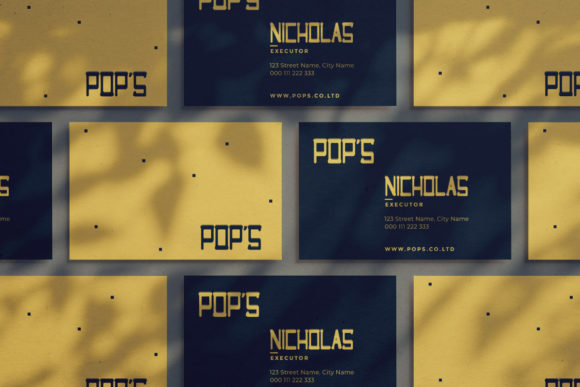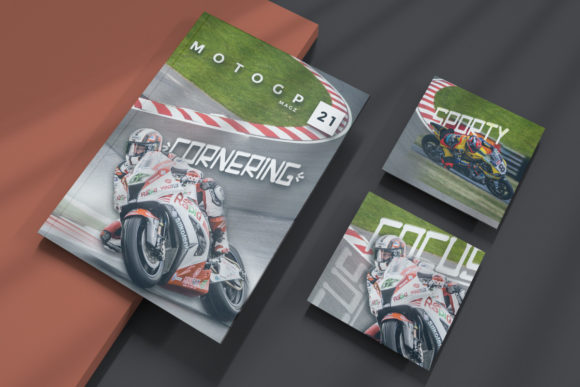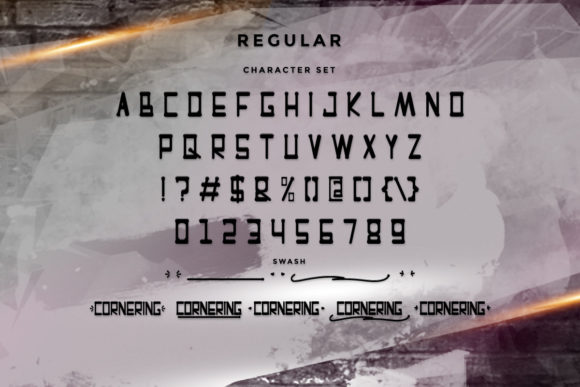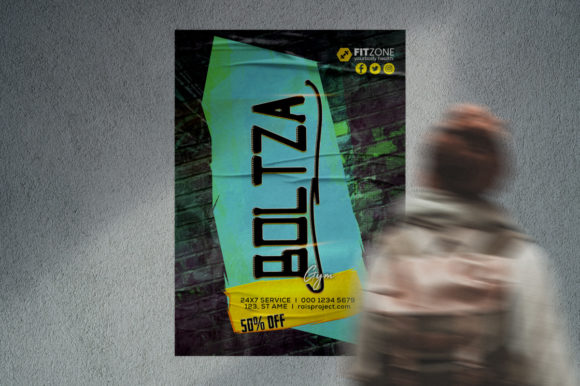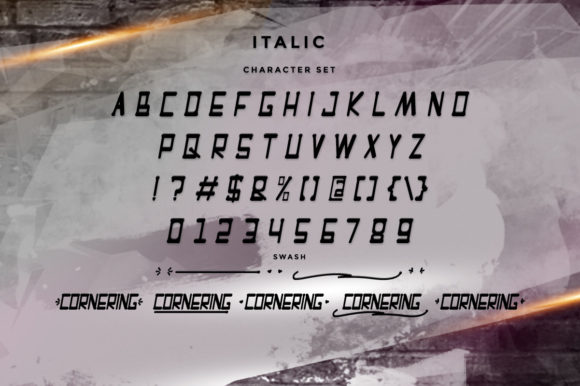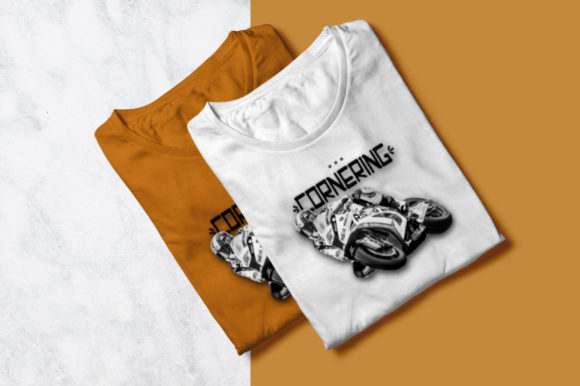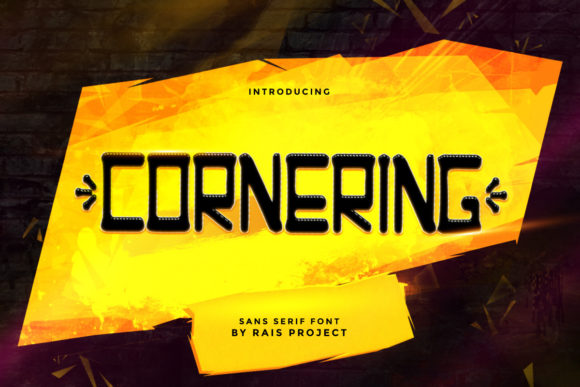
Introducing Cornering Font: The Ultimate Display Font for Modern Designers and Crafters
Are you tired of using the same old fonts for your designs and crafts? Look no further! Cornering Font is here to take your creations to the next level. This cool display font boasts the perfect amount of trendiness, making it an ideal choice for designers, crafters, and anyone looking to add a touch of modern style to their work.
What Makes Cornering Font So Special?
Cornering Font is a versatile and stylish display font that can be used for a wide range of projects. Whether you’re a digital designer working on a new campaign, a crafter creating handmade cards and gifts, or a presenter looking to spice up your slides, Cornering Font is the perfect choice. Its unique and trendy design ensures that your work will stand out from the crowd and leave a lasting impression.
Perfect for Crafting and Digital Designing
Cornering Font is a dream come true for crafters and digital designers. Its bold and eye-catching design makes it perfect for:
• Handmade cards and gift tags
• Digital invitations and party decor
• Presentations and slideshows
• Branding and packaging design
Why Choose Cornering Font?
So, what sets Cornering Font apart from other display fonts on the market? Here are just a few reasons why designers and crafters love this font:
• Unique and trendy design: Cornering Font features a one-of-a-kind design that’s sure to turn heads.
• Highly versatile: This font can be used for a wide range of projects, from digital designs to handmade crafts.
• Easy to read: Despite its bold and edgy design, Cornering Font is surprisingly easy to read, making it perfect for use in presentations and other applications where legibility is key.
• Perfect for titles and headings: Cornering Font is designed specifically for use as a display font, making it ideal for titles, headings, and other applications where you want to make a big impact.
Tips for Using Cornering Font
Now that you’ve fallen in love with Cornering Font, here are a few tips for using it to get the most out of your designs:
• Use it sparingly: Cornering Font is a bold and eye-catching font, so use it sparingly to avoid overwhelming your design.
• Pair it with a simple font: For body text and other applications where you need a clear and easy-to-read font, pair Cornering Font with a simple sans-serif font.
• Experiment with colors and textures: Cornering Font looks amazing in a variety of colors and textures, so don’t be afraid to get creative and try out different combinations.